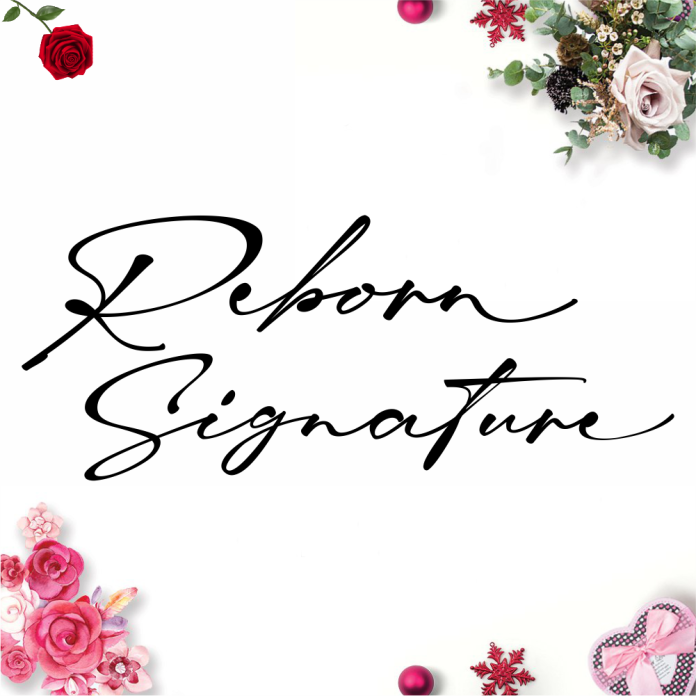
Reborn Signature Font is a sleek and elegant script font with a modern twist. Its flowing lines and stylish curves give it a sophisticated look perfect for branding, invitations, and other design projects. The font exudes a sense of luxury and professionalism, making it ideal for creating eye-catching and impactful designs.